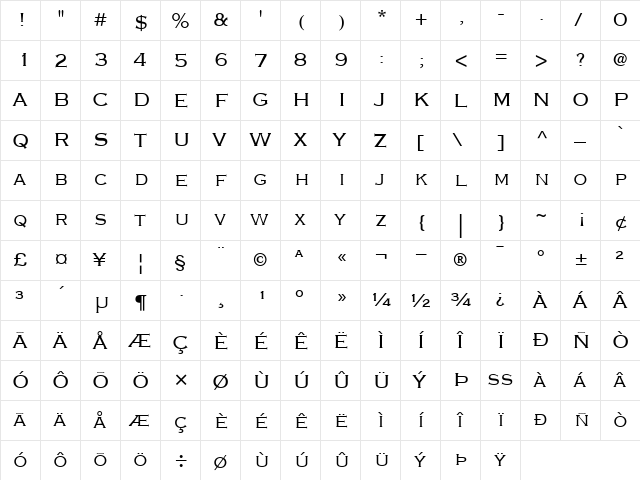
CopperplateGothicThirty-TwoBC Roman
Design Context for CopperplateGothicThirty-TwoBC Typeface
CopperplateGothicThirty-TwoBC takes a clean, functional approach — its unadorned letterforms prioritise legibility and work reliably across screen and print environments.
Font Pairing: Works well alongside a characterful serif or display font that can carry the expressive load while CopperplateGothicThirty-TwoBC handles the functional copy.
Pro Tip: Pair CopperplateGothicThirty-TwoBC with a display or serif font for headlines — its neutral character makes it an excellent supporting player in complex typographic systems.